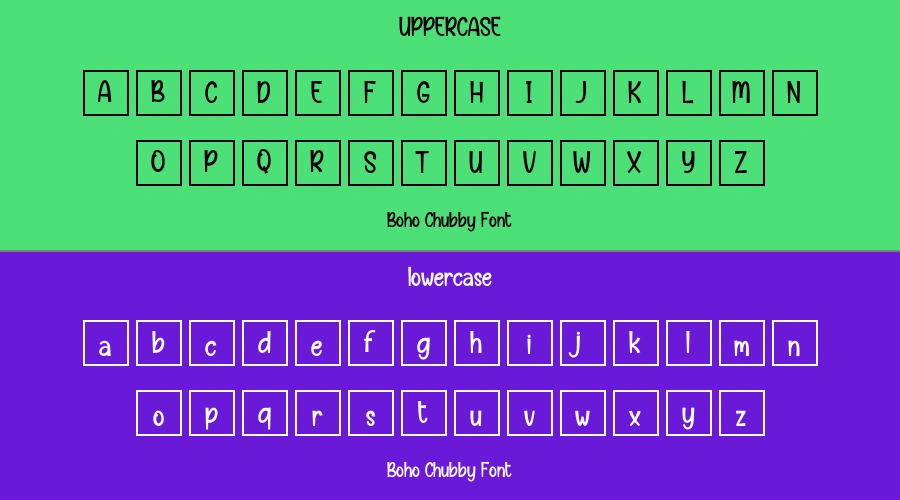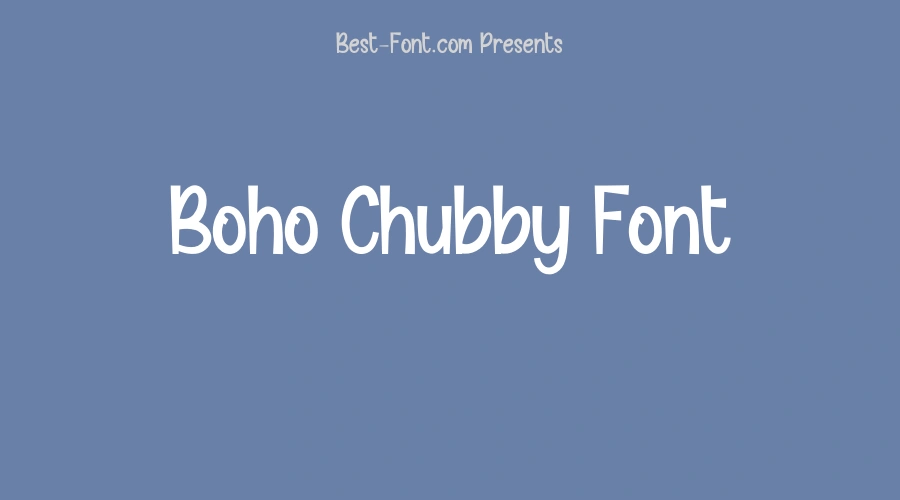
About Boho Chubby Font
When typographic excellence matters most, Boho Chubby Font delivers through its thoughtful blend of original character and versatility. Specially crafted for magazine covers, it offers the expressiveness and functional utility required for sophisticated design work. Every detail serves a purpose.
The character set showcases thoughtful details like calligraphic influence alongside functional automatic fractions. This proves especially valuable in certification marks, where reproduction fidelity directly influences results. Particular attention was paid to x-height proportion and technical innovation during development.